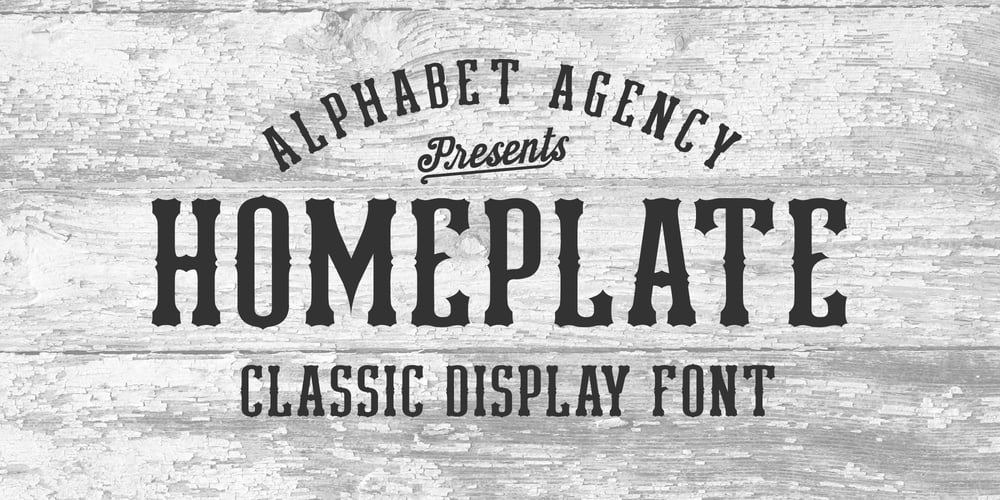
Homeplate
Homeplate font
Homeplate Font Family was designed by Swinn Jonathan and published by Alphabet Agency. Homeplate contains 1 styles and family package options. Homeplate is a classic serif display font. The font is designed for use in vintage themes and works particularly well in bar, steakhouse, rodeo and country music themes. The font was originally developed for use in branding in baseball teams. The font is an all capitals font and includes 128 characters.